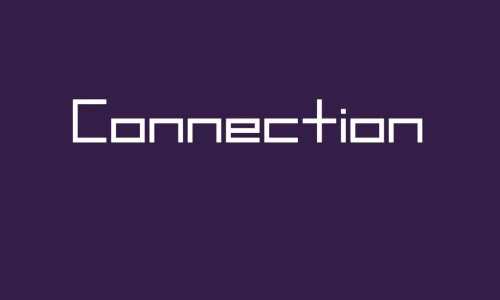
In this post, we are presenting new stylish and elegant font known as Geo Sans Font. This font style design belongs to the category of Sans Serif typeface.
Manfred Klein is the designer of this fabulous font. This font style design looks great because of its glyphs, super legibility, Character sets, and styles.
The font looks incredible from other fonts due to its clean and slim appearance. This font can be paired with Google Sans Font and Aparajita Font for amazing design.